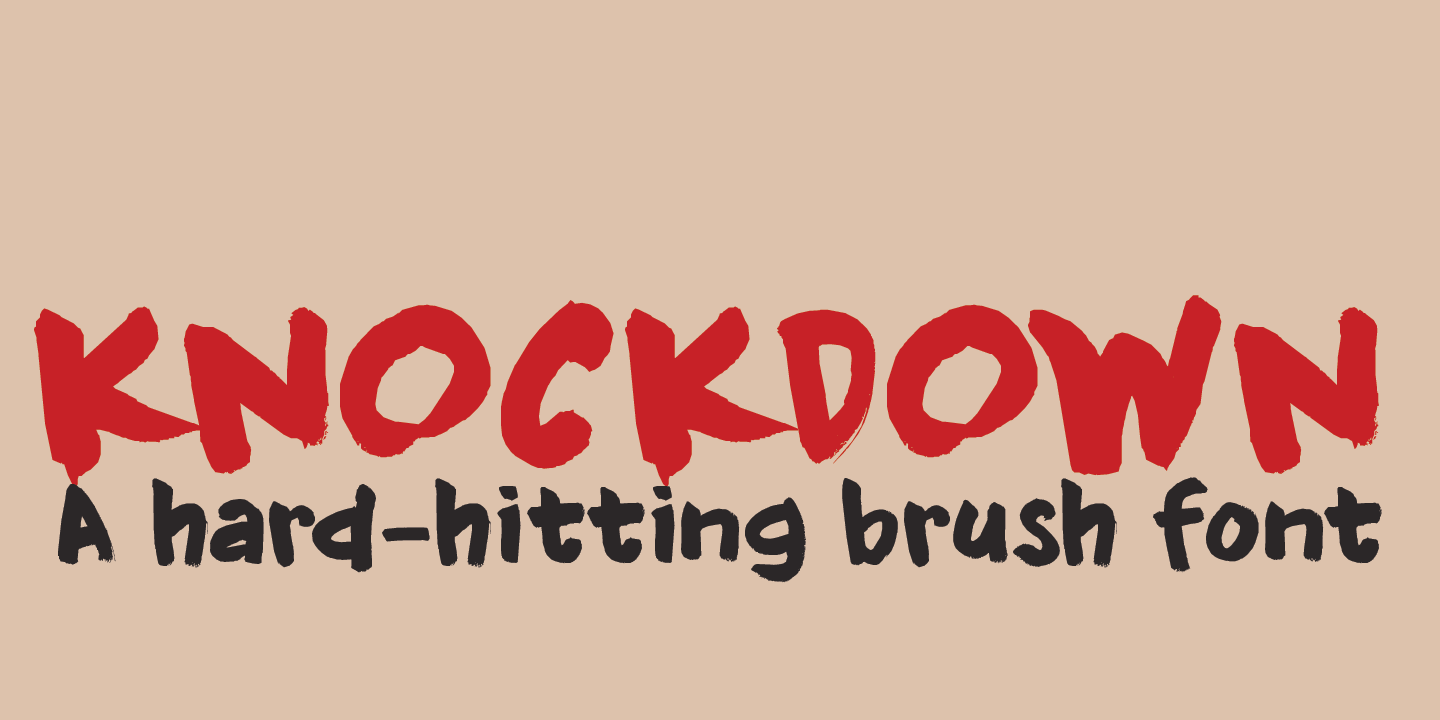
The Knockdown Font is an excellent choice for projects that demand a bold, impactful, and attention-grabbing presence. It's perfectly suited for sports branding, event posters, gaming interfaces, heavy metal album covers, action movie titles, protest signs, comic book lettering, and any design that needs to convey strength, power, and high energy. Its assertive character makes it ideal for projects where you need to make a statement that is both unmistakable and memorable.
What makes Knockdown Font so exciting is its raw, unyielding force. It immediately conveys a sense of power and directness, much like a punch or a heavy impact. The letterforms are often designed with thick strokes and sharp angles, giving them a rugged and unrefined aesthetic that commands visual dominance. This font isn't just about reading words; it's about feeling the weight and intensity of the message. It excels at delivering maximum visual impact, ensuring your headlines and key messages truly resonate and grab the audience's attention with undeniable authority.
The Knockdown Font family typically emphasizes variations that enhance its powerful and impactful nature. You'll most commonly find heavy or extra bold weights, as the core design philosophy revolves around high visibility and strength. Depending on the specific design, you might also encounter condensed or expanded styles to offer flexibility in fitting different layout requirements while maintaining its aggressive posture. Some versions might even include subtle distress effects or gritty textures to amplify its raw and unpolished appeal.
Whether you're creating a powerful sports campaign, designing an impactful protest banner, or crafting a visual identity for an energetic brand, the Knockdown Font Free Download is an indispensable tool. Its commanding visual presence and undeniable force make it a premier choice for any project that needs to deliver a strong, unforgettable message with maximum impact.